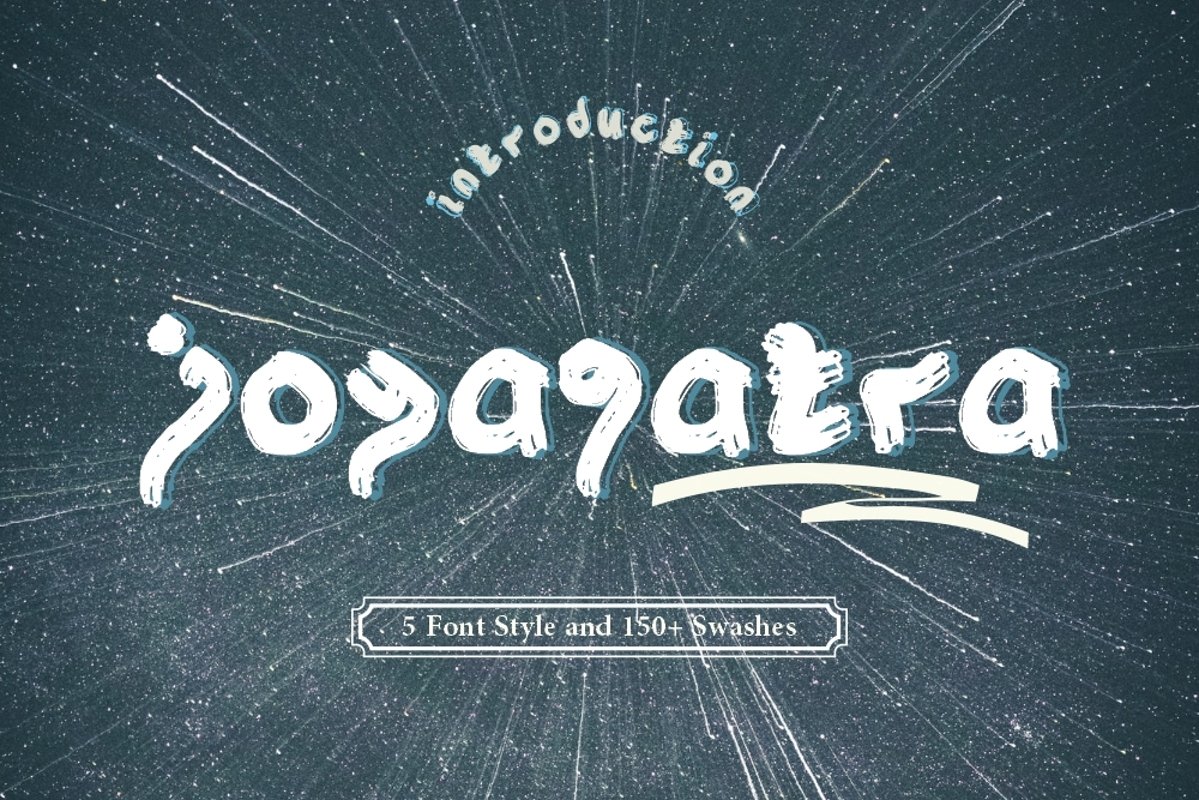
Joyagatra - 5 Font styles and 150 Swashes
Joyagatra-DaubleTail
Joyagatra-Blonde
Joyagatra-Halfmoon
Joyagatra-Regular
Joyagatra-Pair
Joyagatra - 5 Font styles and 150+ Swashes
Joyagatra represents the best of organic curves with sharp modern edges.
Sophisticated and edgy, it's everything you want out of a display font.
It looks amazing at large sizes and, also, small sizes.
Looks great packaged on wrapping, bottles and jars or digitally on websites, social and apps or printed on newspapers, magazines and flyers.